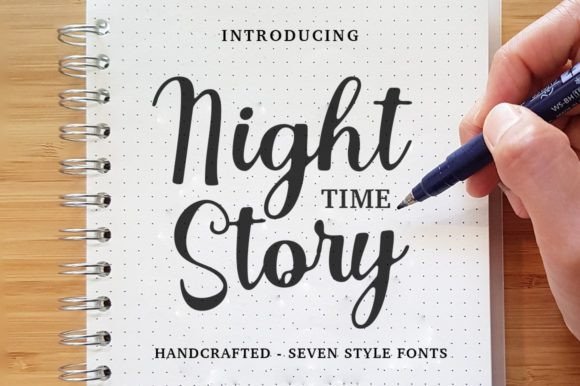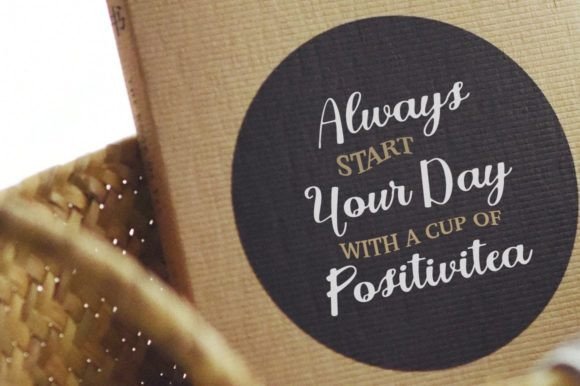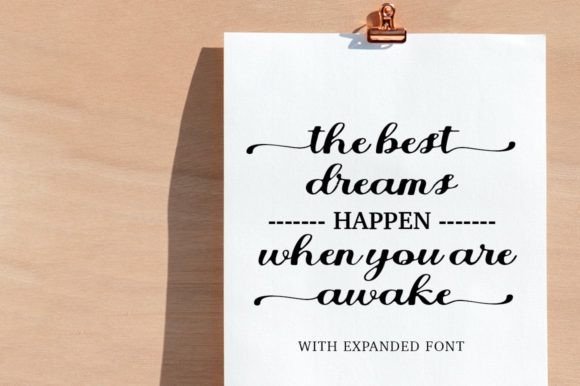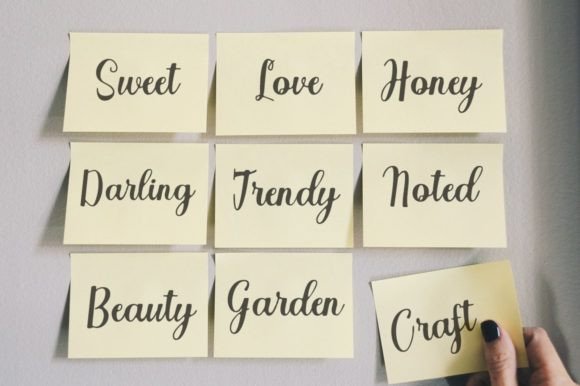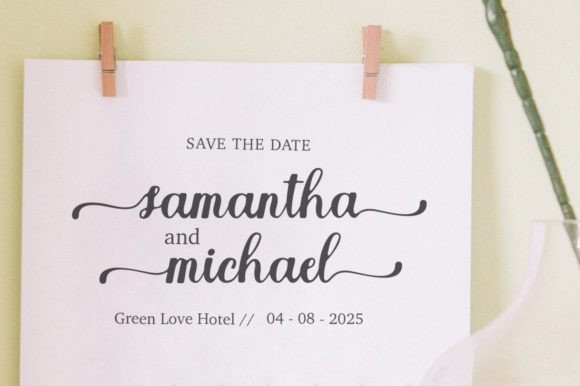
Night Time Story Font
About Night Time Story Font
Night Time Story is a sophisticated and modern script font family that exudes elegance and authenticity. Its refined design and authentic touch make it a versatile choice for a wide range of formal projects. Whether you’re working on logos, invitations, labels, magazines, books, greeting or wedding cards, packaging, fashion designs, makeup products, stationery, novels, or any type of advertising material, Night Time Story elevates your creations with its contemporary and stylish aesthetic.
The font’s clean lines and flowing curves create a harmonious balance, making it suitable for both digital and print applications. Night Time Story’s versatility allows it to adapt seamlessly to various design contexts, enhancing the visual appeal of your projects. Its modern script style adds a touch of sophistication, making it perfect for projects that require a refined and elegant appearance.
One of the standout features of Night Time Story is its suitability for formal occasions and high-end branding. Its polished and professional look makes it an excellent choice for upscale events, luxury products, and premium services. The font’s versatility enables it to convey a sense of sophistication and exclusivity, setting the tone for elegant and refined designs.
Incorporating Night Time Story into your projects communicates a sense of style and class. Its authentic touch and modern script design make it a favorite among designers who seek a font that combines contemporary elegance with versatility. By choosing Night Time Story, you’re selecting a font that enhances your creative vision and adds a touch of sophistication to your designs.
So, whether you’re crafting a luxurious wedding invitation, designing a high-end fashion label, creating an elegant magazine layout, or developing a premium packaging design, let Night Time Story be your font of choice. Its modern script style, coupled with its authentic touch, empowers you to create visually stunning and sophisticated projects that leave a lasting impression. Embrace the elegance of Night Time Story and watch your designs come to life with a touch of modern refinement and timeless charm.